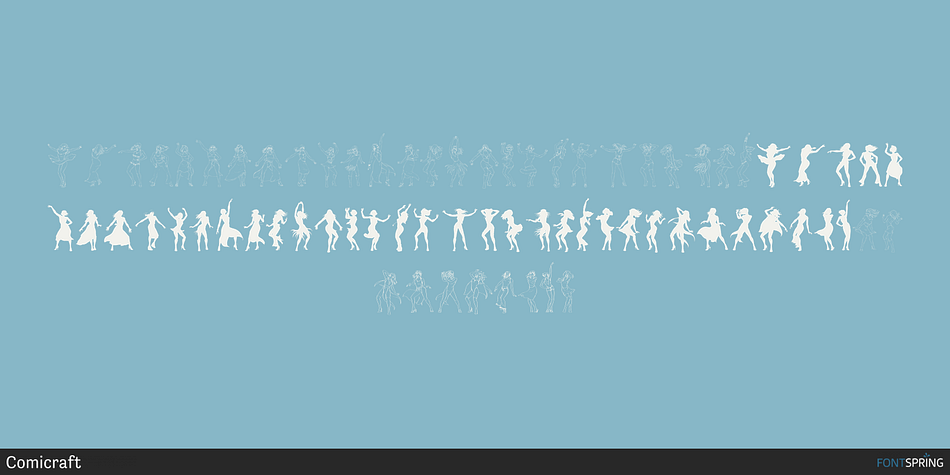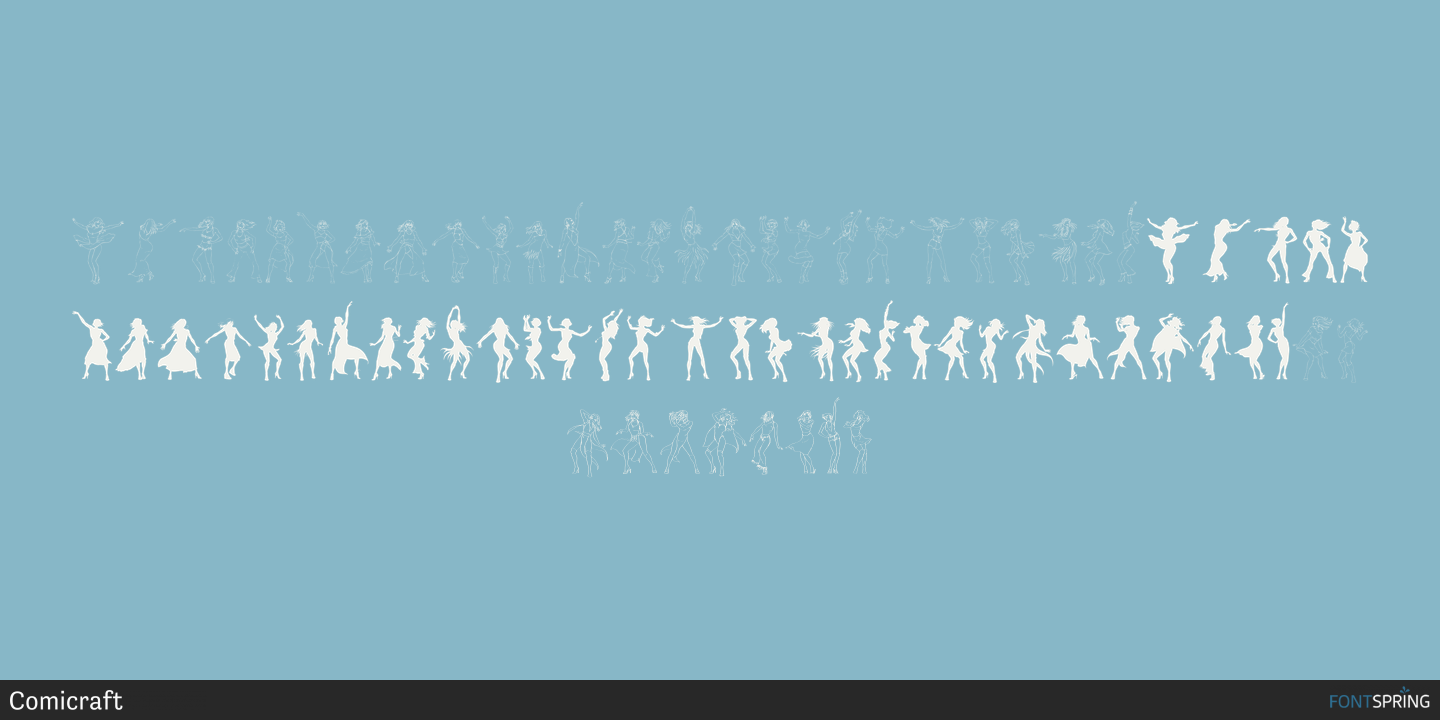
Designed by John Roshell, Yeah Baby is a dingbat font published by Comicraft.
Mmm-hmmm! Dig that crazy beat! Following the success of Lilou’s GIRLS!GIRLS!GIRLS! font, we couldn’t wait to give you More!More!More! Yeah, Baby! It’s a font and it’s clip art and it’s bound to make heads turn and temperatures rise. Get up on the dance floor, girl, and dance the way you’ve never danced before!